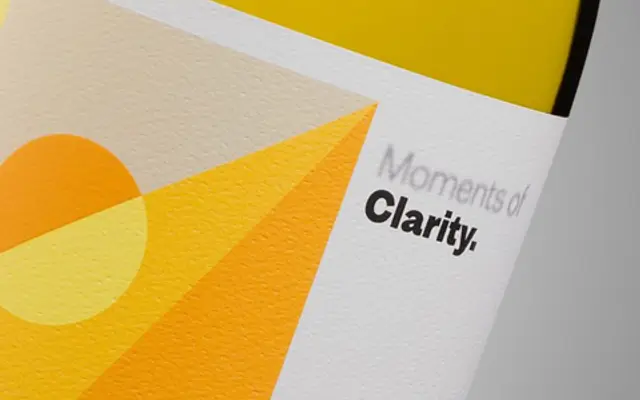
Mint Grotesk
Lift Type · Sébastien Sanfilippo · 2023
A 16-style grotesque by Sébastien Sanfilippo that injects 19th-century eccentricity into a sturdy, versatile sans suited to both text and display work.
Designed by Sébastien Sanfilippo and released in 2023, Mint Grotesk runs eight weights from Thin to Heavy, each with a matching italic, totalling 16 styles across 550 glyphs. Its character comes from period-inflected details that give it personality without sacrificing legibility at smaller sizes. A companion Display family extends the system for more expressive, large-scale use.
A no-nonsense grotesque sans-serif with deliberate 19th-century quirkiness, placing it clearly in the grotesque tradition rather than the cleaner geometric or humanist camps.